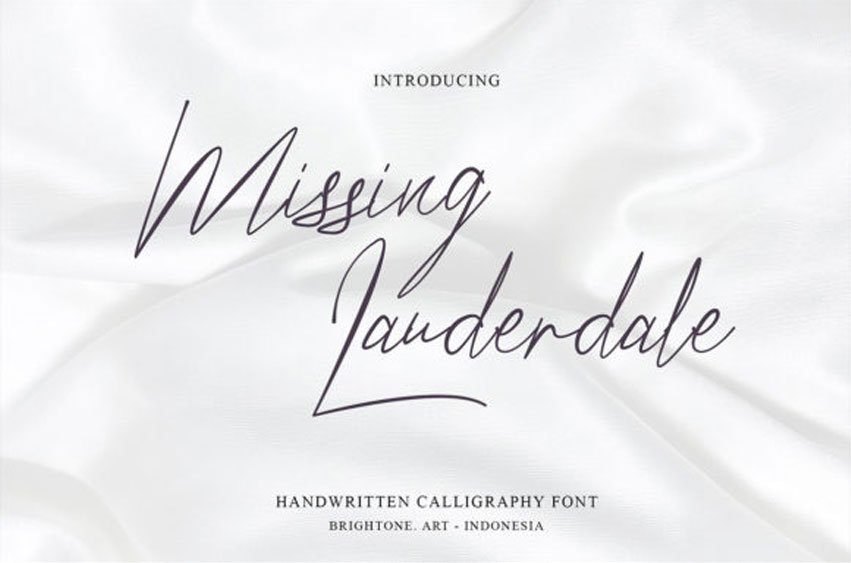
Missing Lauderdale Font is an exquisite handwritten font, masterfully designed to become a true favorite. It maintains its classy calligraphic influences while feeling contemporary and fresh.